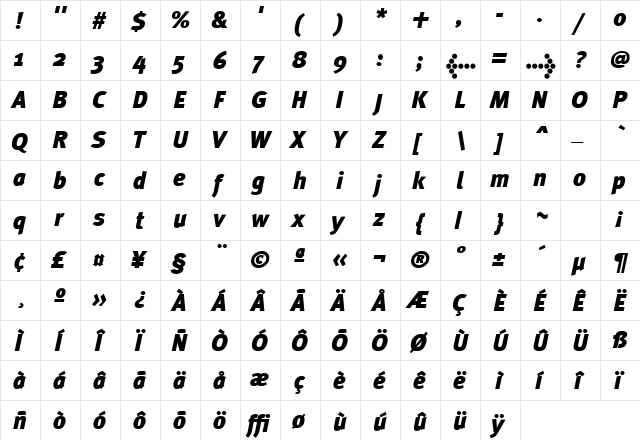
MetaPlusBlack-Italic Regular
Design Context for MetaPlusBlack-Italic Typeface
MetaPlusBlack-Italic takes a measured approach to typography — its balanced proportions and neutral character make it a reliable workhorse for both digital and print work. Its italic angle brings a sense of urgency and motion to the letterforms.
Pro Tip: Use MetaPlusBlack-Italic for emphasis, pull quotes, and subheadings where its slanted energy can add rhythm to the layout.